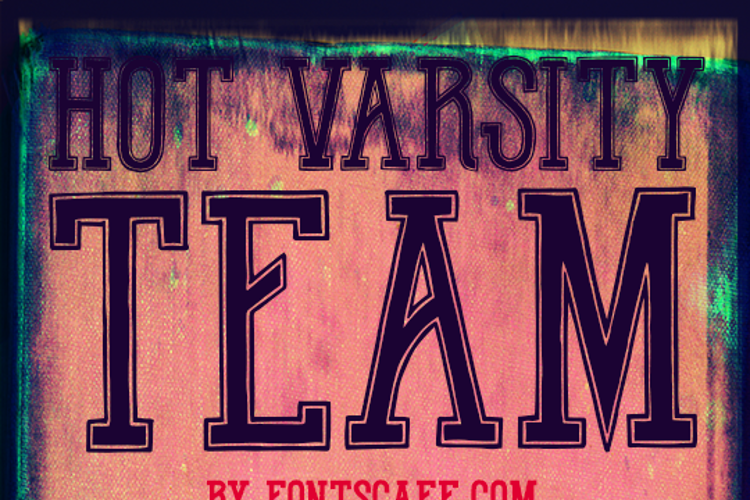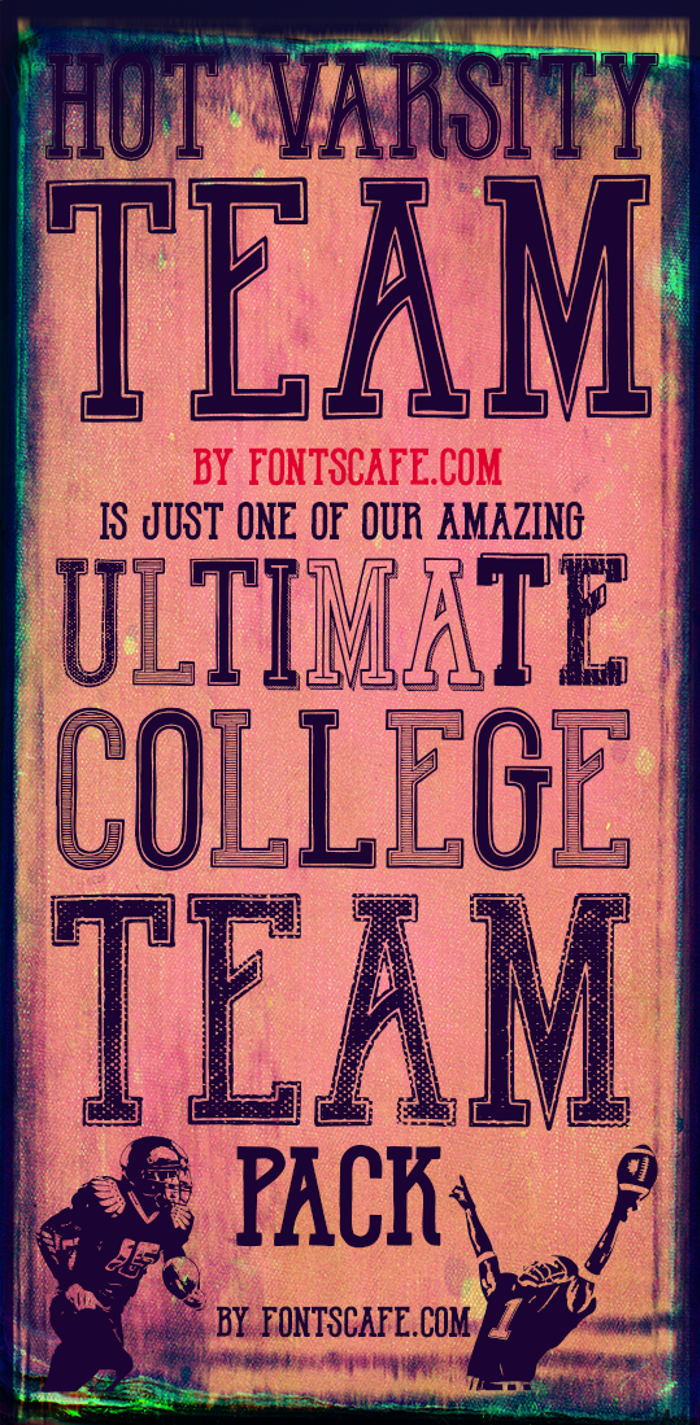
Hot Varsity Team Font
We put together the feeling of grit and loyalty in character styles (notice the solid extended tail on the 'S'), and a feeling of that college determination with the elegant outlines on characters to come out with one of the "must have" college font for sports related project or where a touch of "University style" is necessary.
An elegant Varsity font ideal to convey loyalty, self-confidence and determination in your next visual communication, all this is our "Hot Varsity Team" font (http://fontscafe.com/font/hot-varsity-team-font).
A font that is also part of our great "Ultimate College Team" Pack (http://fontscafe.com/font/ultimate-college-team-pack) where the "College style" is the base from where we developed a serie of fonts all created with solid and steady characters but each with different emotions and flavours.